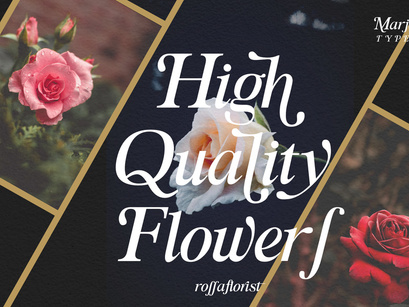
Marjourry modern serif display font
Introducing Marjourry modern serif display font, designed to elevate your projects with its unique alternates and ligatures. Perfect for branding, design, invitations, magazines, videos, films, templates, and more, this versatile font brings a touch of elegance and sophistication to any medium, it ensures compatibility across various platforms and applications. Add a distinctive flair to your creations with this beautifully crafted serif font.